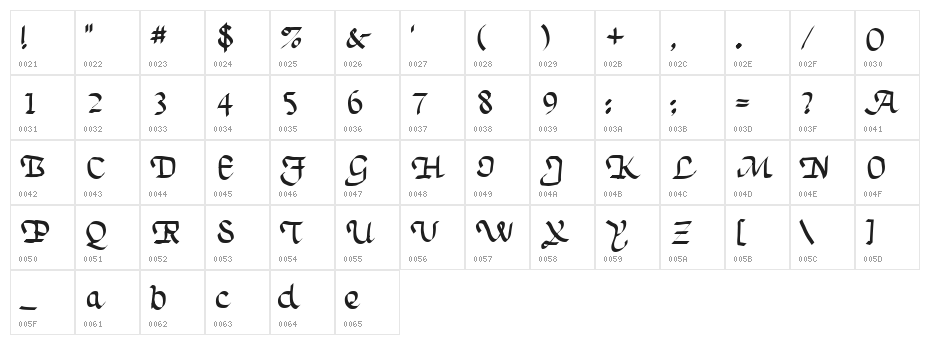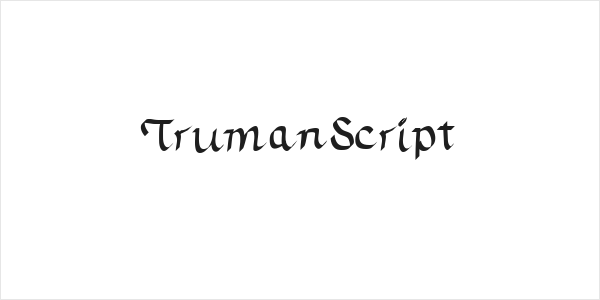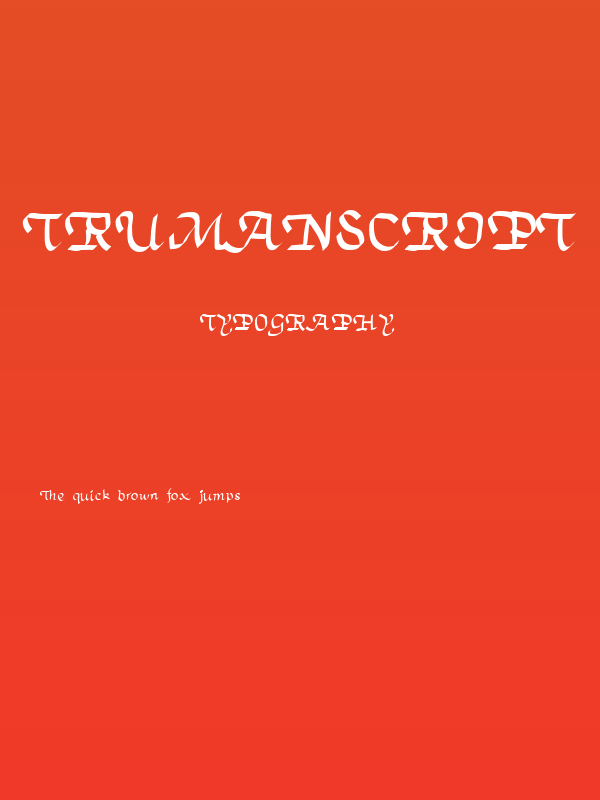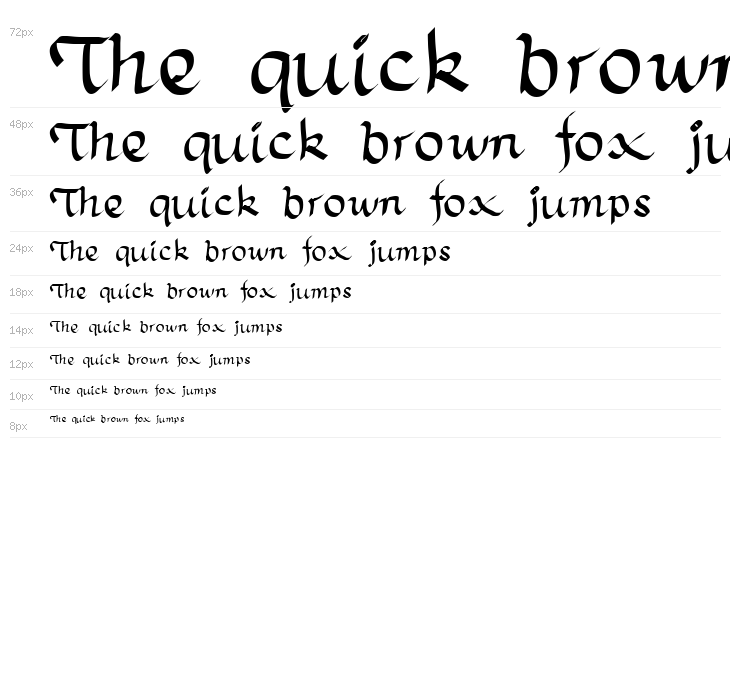
TrumanScript Font
TrumanScript Description
This font exhibits a dynamic and flowing script style, characterized by its elegant and cursive letterforms. The uppercase letters are bold and slightly angular, giving a sense of formality and tradition, while the lowercase letters are more fluid and connected, enhancing readability and aesthetic appeal. The numerals are consistent with the overall style, maintaining a balance between legibility and decorative flair. Special characters are designed with the same attention to detail, ensuring they integrate seamlessly with the rest of the typeface. The strokes vary in thickness, providing a medium contrast that adds depth and dimension to the text. This font is suitable for projects that require a touch of sophistication and elegance.
| Overall Style | Elegant, Decorative |
| Use Case | Headlines, Invitations, Branding |
| Proposed Projects | Ideal for wedding invitations, greeting cards, elegant branding, and decorative headlines. |